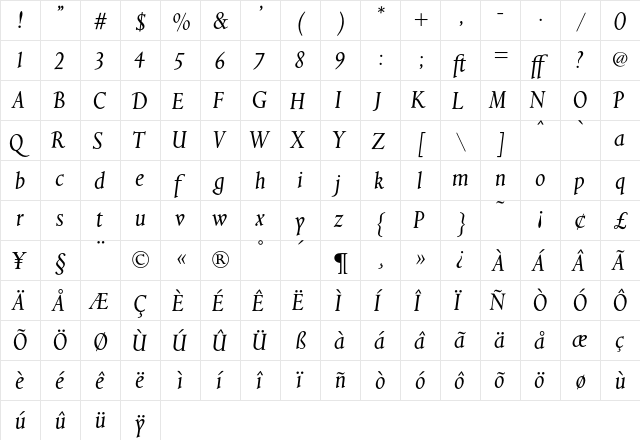
Aries ItalicRangingFigs Font Preview
Aries ItalicRangingFigs
Aries ItalicRangingFigs Font Details
| Style | ItalicRangingFigs |
Design Context for Aries Typeface
Aries takes a measured approach to typography — its balanced proportions and neutral character make it a reliable workhorse for both digital and print work. The slanted form adds forward momentum and visual energy.
Pro Tip: Use Aries for emphasis, pull quotes, and subheadings where its slanted energy can add rhythm to the layout.